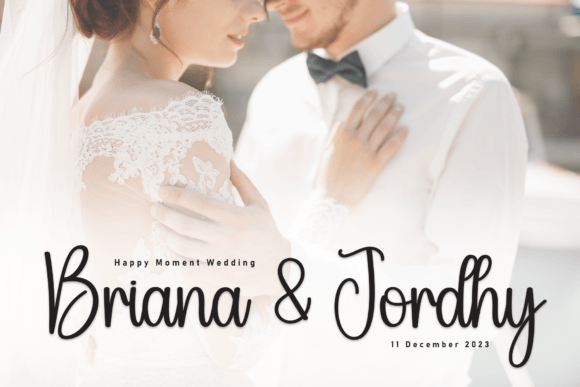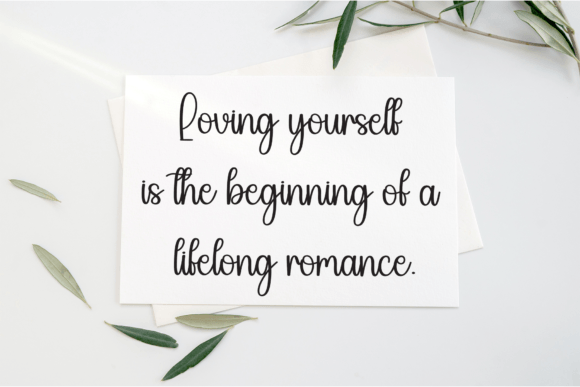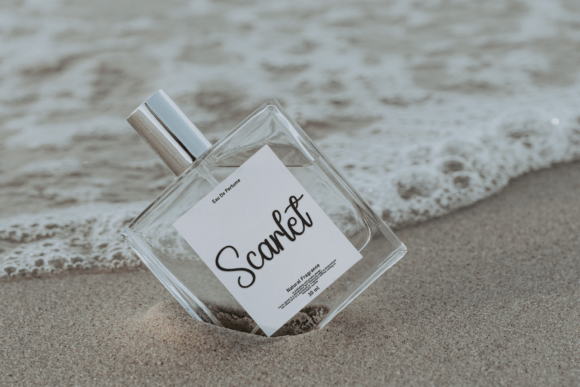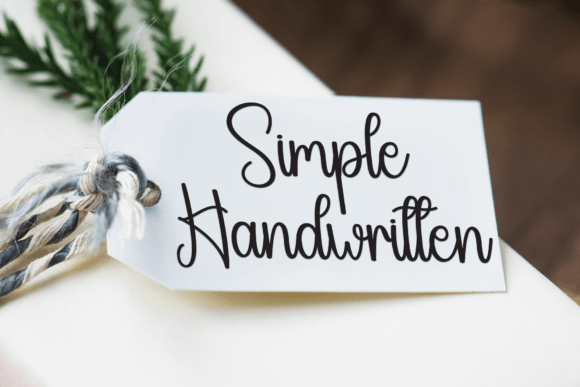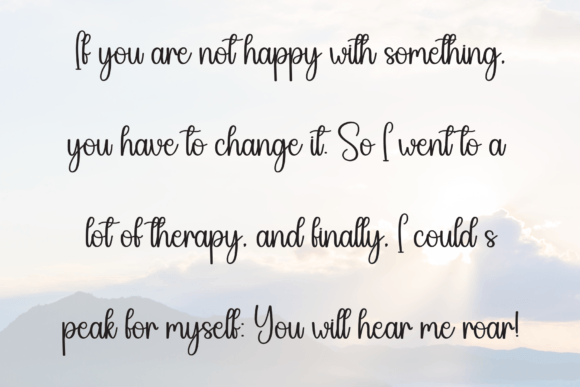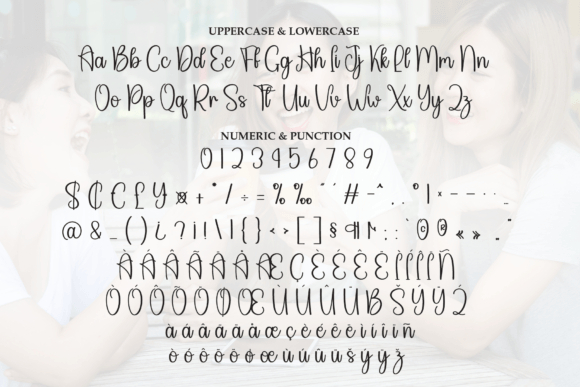
Introduction to Jocularly Font
Do you remember the moment when you first saw a beautiful handwritten font on a wedding invitation or a birthday card, and it instantly made your day? That’s what I experienced when I stumbled upon the Jocularly Font – a sweet and friendly handwritten font that has been a game-changer for me and many designers out there.
As a designer, I’m always on the lookout for high-quality design resources that can elevate my creative projects. The Jocularly Font is one such treasure that has been a valuable addition to my design arsenal. Its versatility and lovable feel make it an ideal choice for any design that needs a lovely touch, from wedding invitations to greeting cards.
Key Features of Jocularly Font
- High-quality design for creative projects: Jocularly Font is a versatile and stylish typeface suitable for various creative projects, from branding to editorial content.
- Transparent background: Jocularly Font features a transparent background, allowing for easy layering and manipulation in design applications.
- Large character set: Jocularly Font includes a wide range of characters, including Latin, Cyrillic, and Greek alphabets, as well as punctuation and symbols.
- High-resolution design: The font is designed at 300 DPI, ensuring crisp and clear text output in high-resolution prints and digital displays.
- Perfect for creative projects: Jocularly Font is ideal for designers and artists working on creative projects, such as magazines, books, and advertisements.
Honest Review: Jocularly Font
Here are some aspects where the Jocularly Font truly shines:
- ✨ High-quality typography: The font’s intricate details and smooth curves make it perfect for creative projects that require a touch of elegance.
- ✨ Versatility: Jocularly Font can be used for a wide range of designs, from logos and headers to body text and even digital displays.
- ✨ Transparent background: The font’s transparent background allows for seamless integration with any design element, making it a valuable asset for designers.
- ⚠️ Limited character set: The font’s character set is relatively small, which may limit its use in projects that require extensive text.
- ⚠️ Not suitable for large-scale printing: While the font looks great on digital screens, it may not hold up well to large-scale printing due to its thin lines and intricate details.
Overall, I’m quite impressed with the Jocularly Font. It’s a valuable design resource that can add a touch of sophistication to any creative project. While it has its limitations, the font’s high quality and versatility make it a worthwhile addition to any designer’s toolkit.
The Jocularly Font is ideal for a variety of creative projects, including invitations, social media graphics, and marketing materials. Its high-quality design and transparent background make it a versatile design resource for any project.